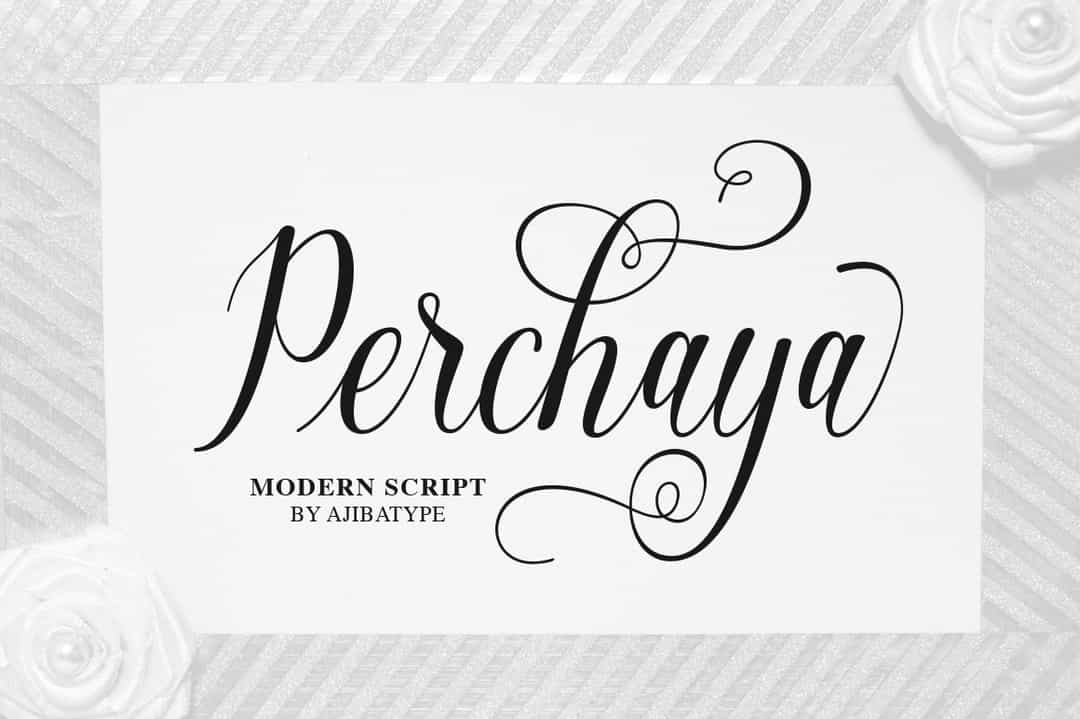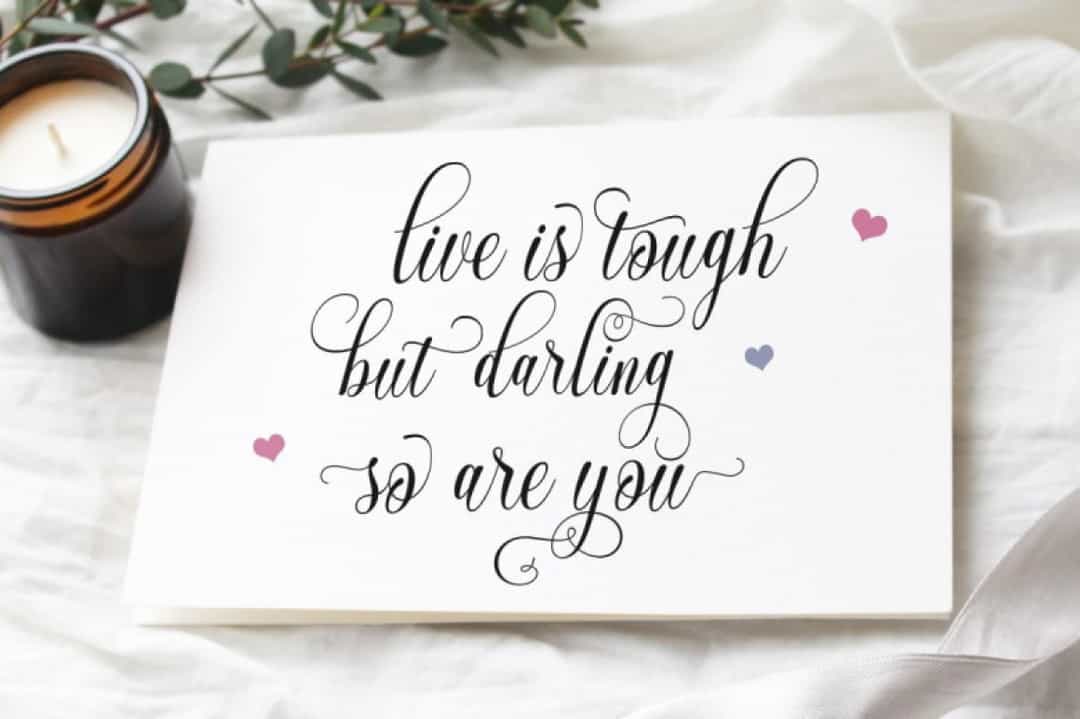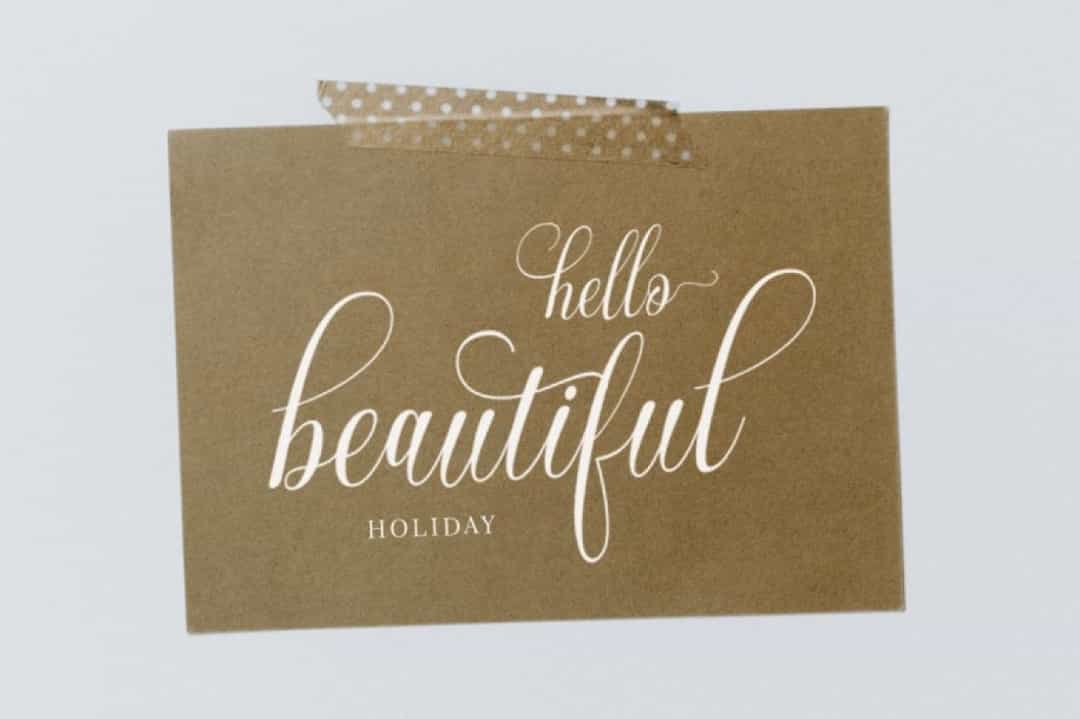
Perchaya Script font is an amazing calligraphy font with incredible versatility. From greeting cards to headlines, its adaptable script font can be used for numerous uses ranging from greetings cards to headlines! Plus, thanks to being PUA encoded you have easy access to every glyph and swash!